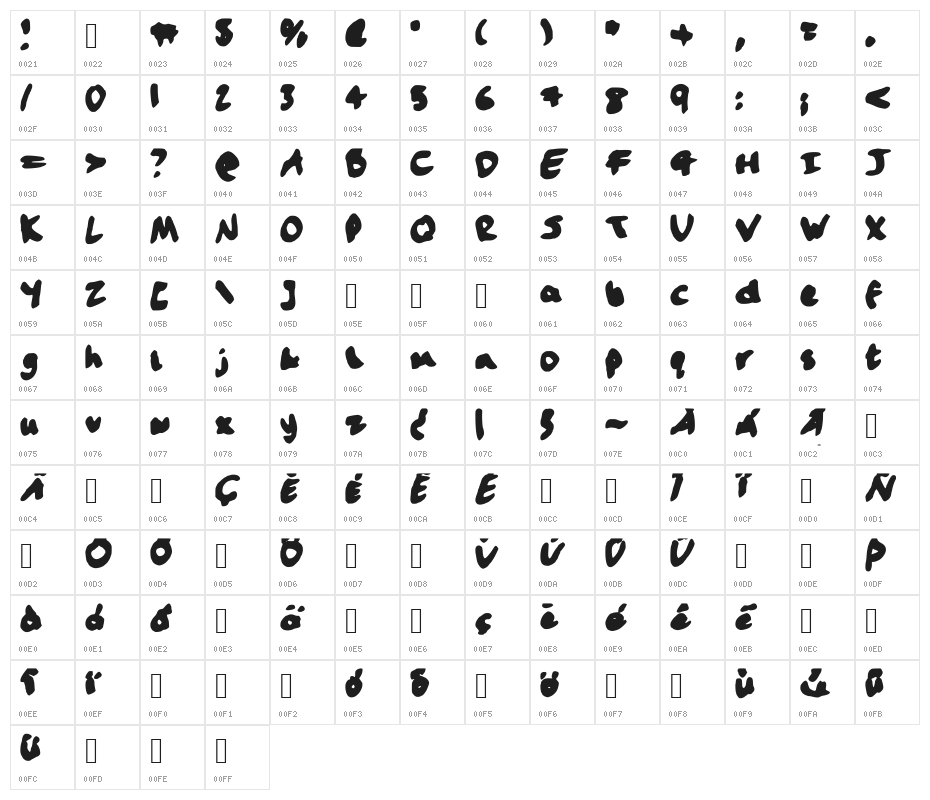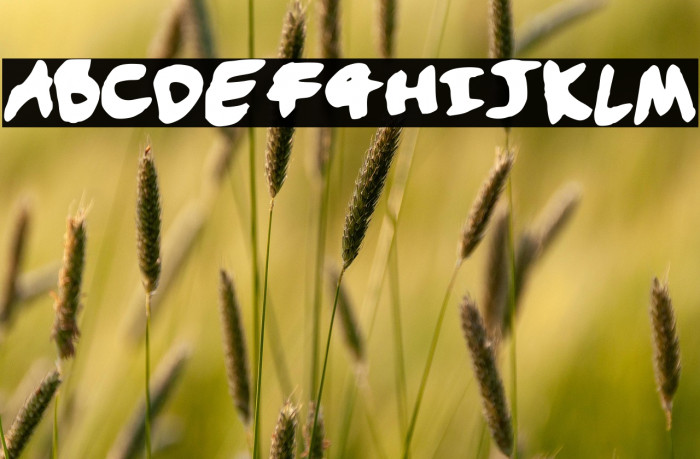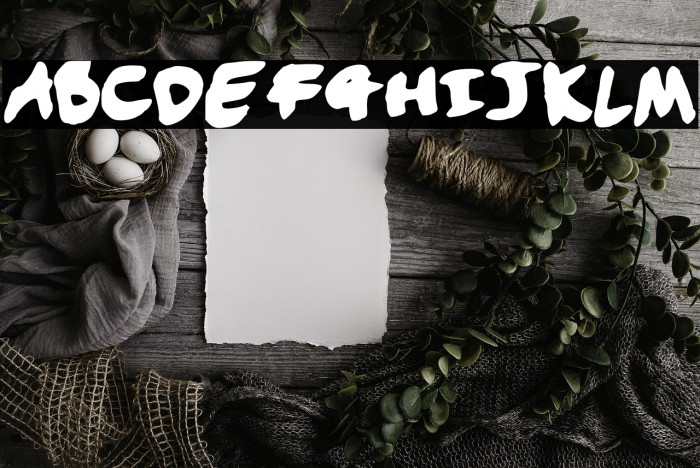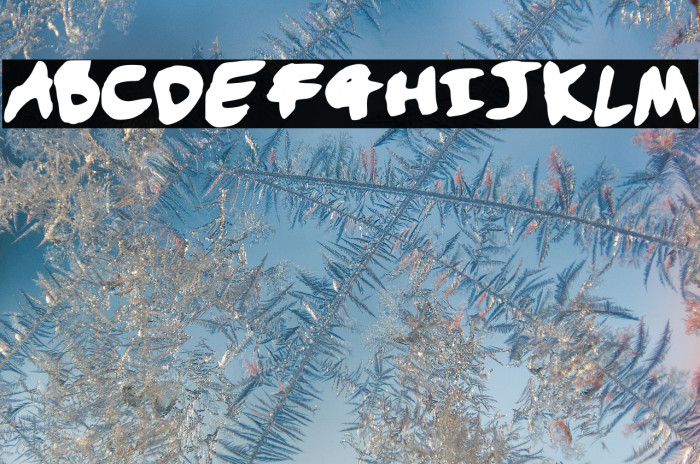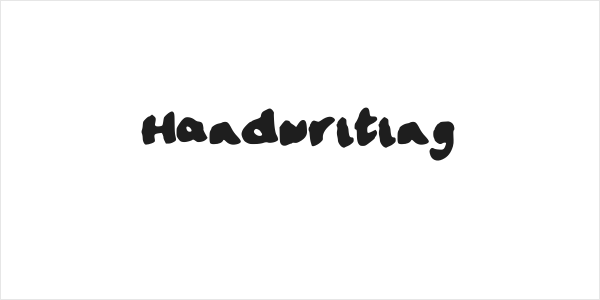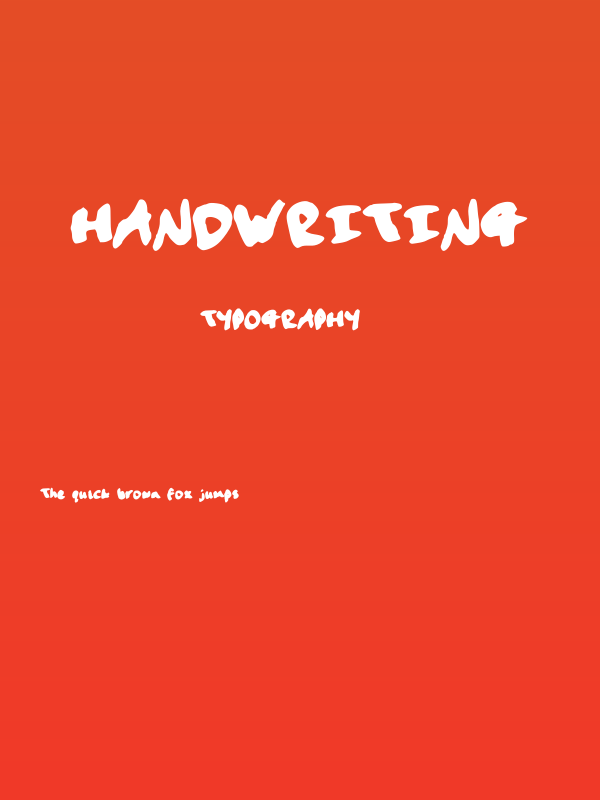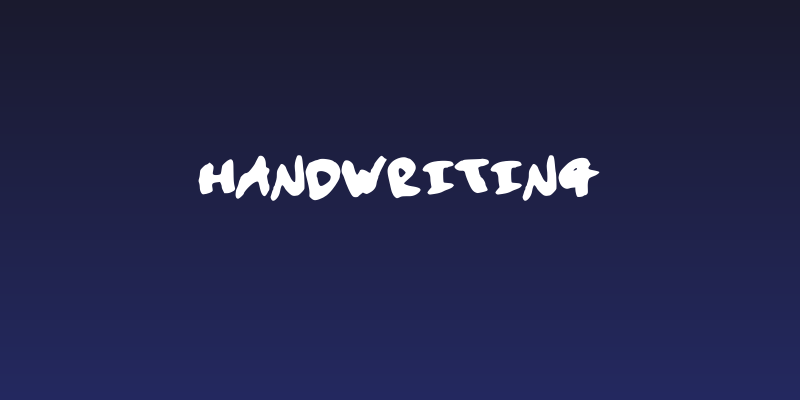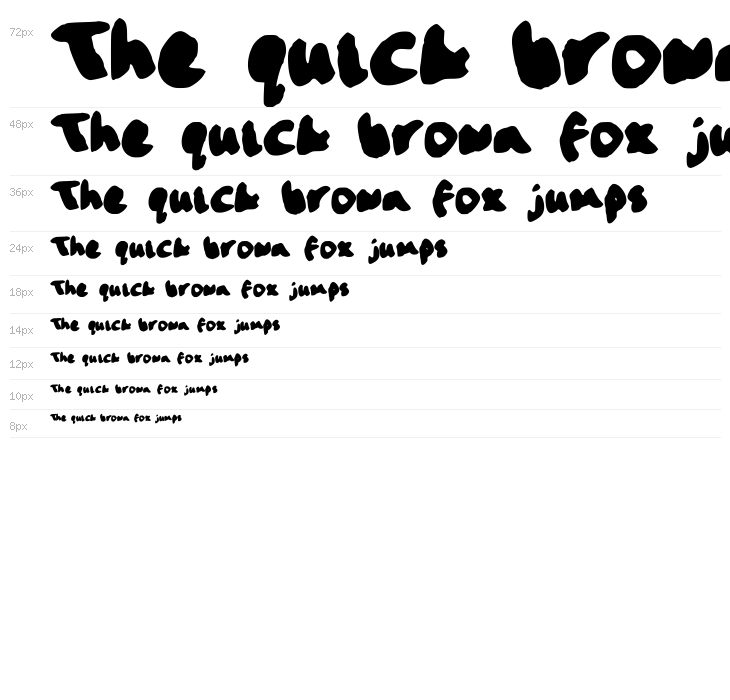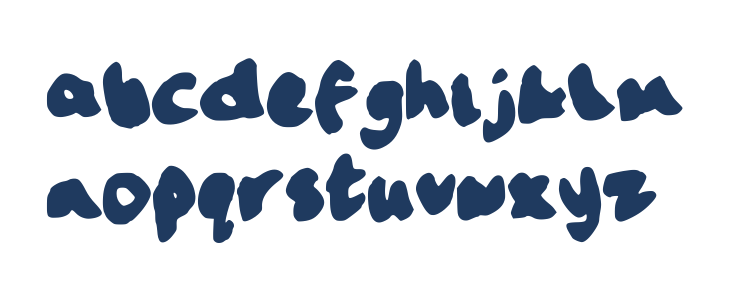
Handwriting Font
Handwriting Description
This font exhibits a bold and playful handwritten style, characterized by thick, rounded strokes that give it a lively and informal appearance. The letters are slightly irregular, enhancing the casual and spontaneous feel. The uppercase and lowercase letters maintain a consistent weight, contributing to a cohesive look. The numbers and special characters follow the same playful design, making the font suitable for creative and informal projects. Its boldness ensures good readability, while the unique shapes add character and charm.
| Overall Style | Playful |
| Use Case | Logos, Headlines, Posters |
| Proposed Projects | Ideal for children's books, playful branding, greeting cards, and informal posters. |